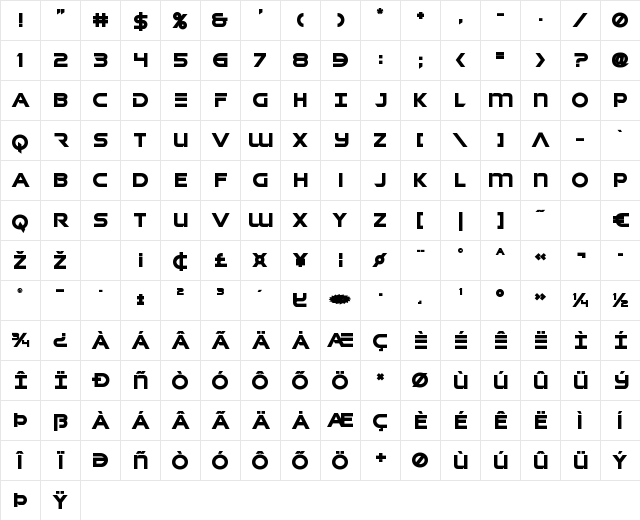
Complete Singapore Sling Bold glyph index. Displaying only characters natively supported by Singapore Sling Bold font.
Singapore Sling is a composed and adaptable typeface that performs quietly and consistently across a wide range of design contexts. Its bold stroke weight gives it real presence on the page.